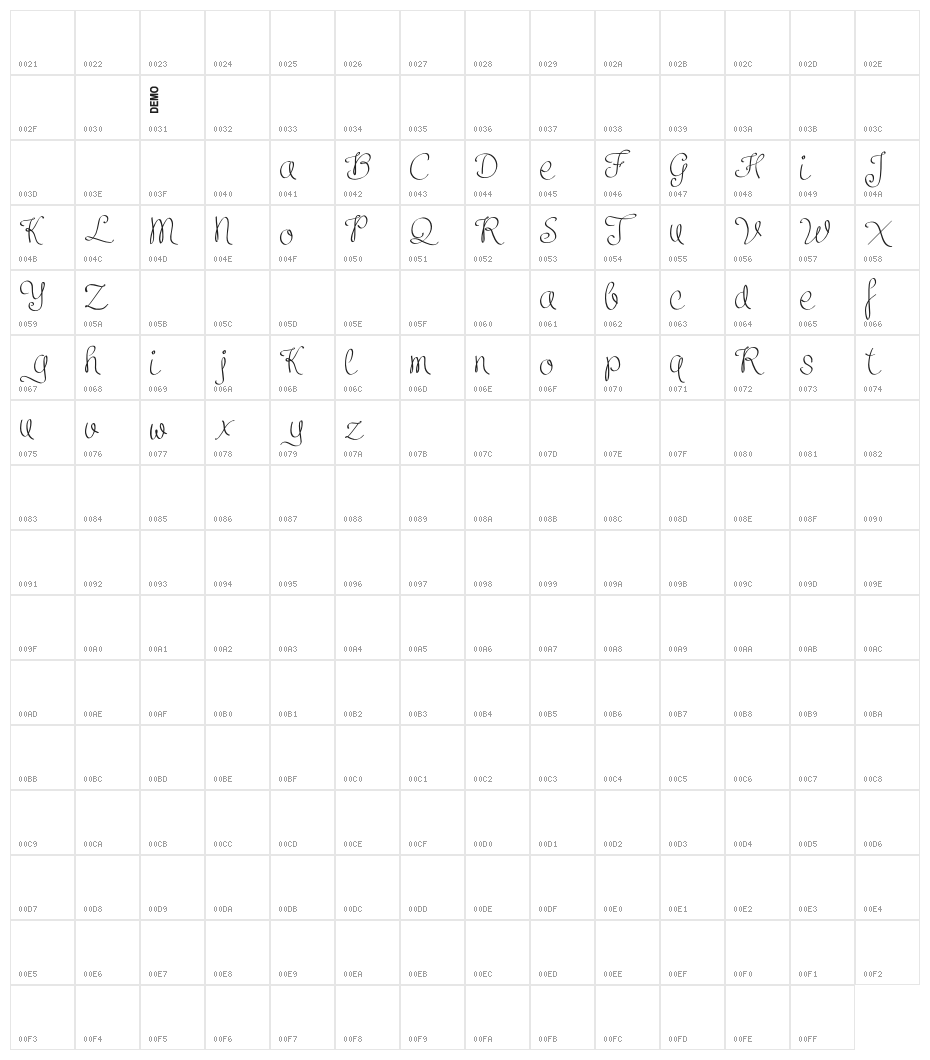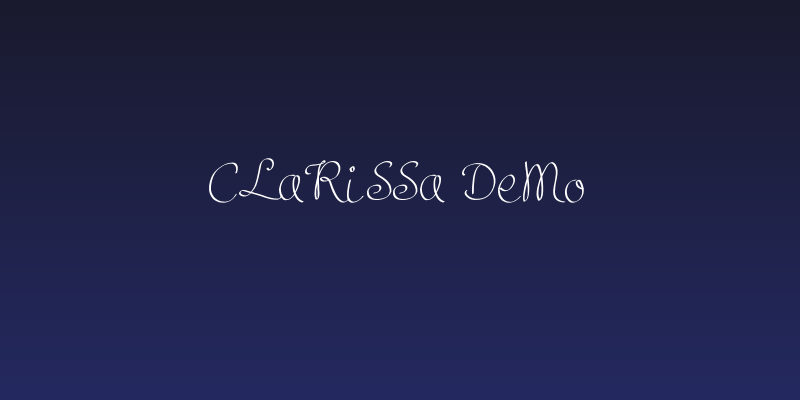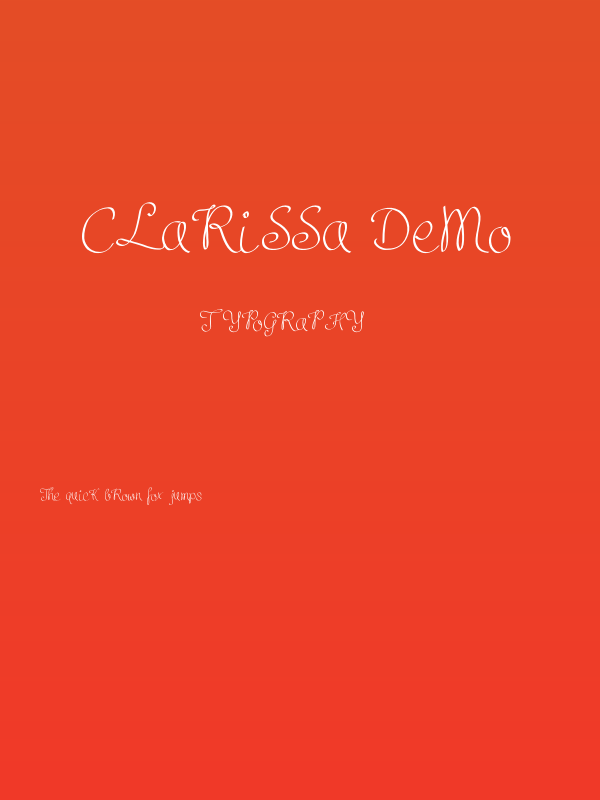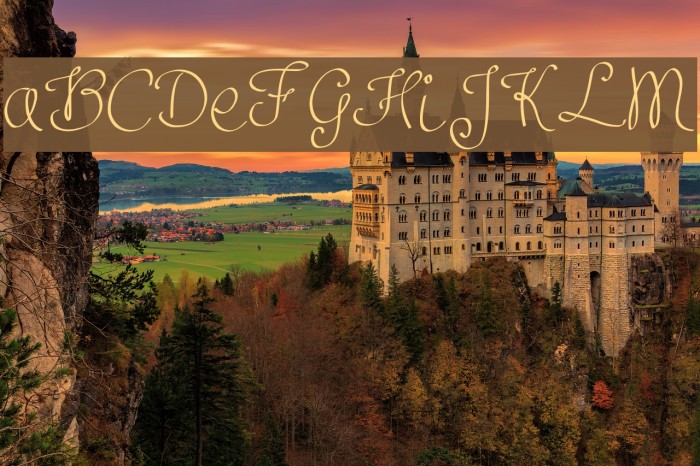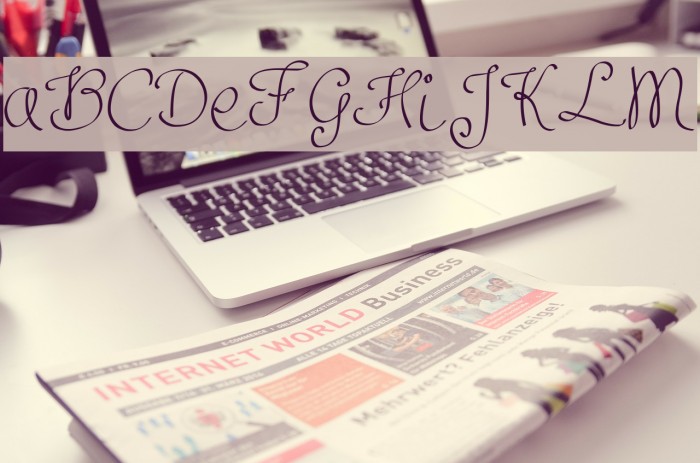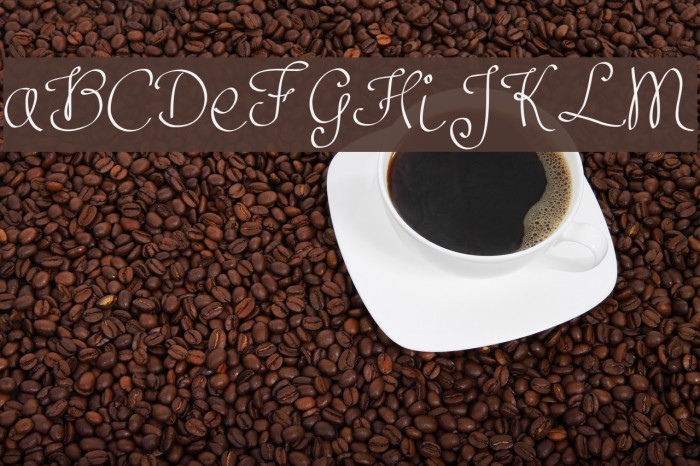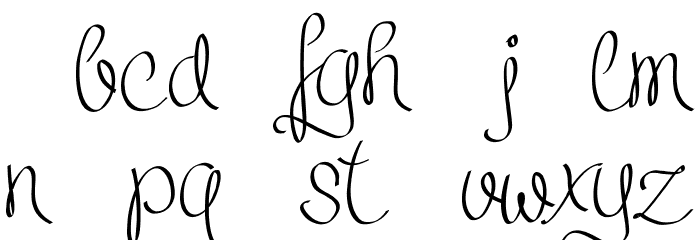
Clarissa Demo Font
Clarissa Demo Description
This font features an elegant and flowing script style, characterized by its delicate and intricate letterforms. The uppercase letters are particularly ornate, with sweeping curves and loops that give a sense of movement and grace. The lowercase letters maintain a consistent style, with a slightly more restrained design that complements the uppercase. The overall appearance is both sophisticated and whimsical, making it suitable for creative and artistic applications. The font includes a full set of uppercase and lowercase letters, numbers, and a selection of special characters, ensuring versatility in design projects.
| Proposed Projects | Ideal for wedding invitations, greeting cards, branding, and decorative projects. |